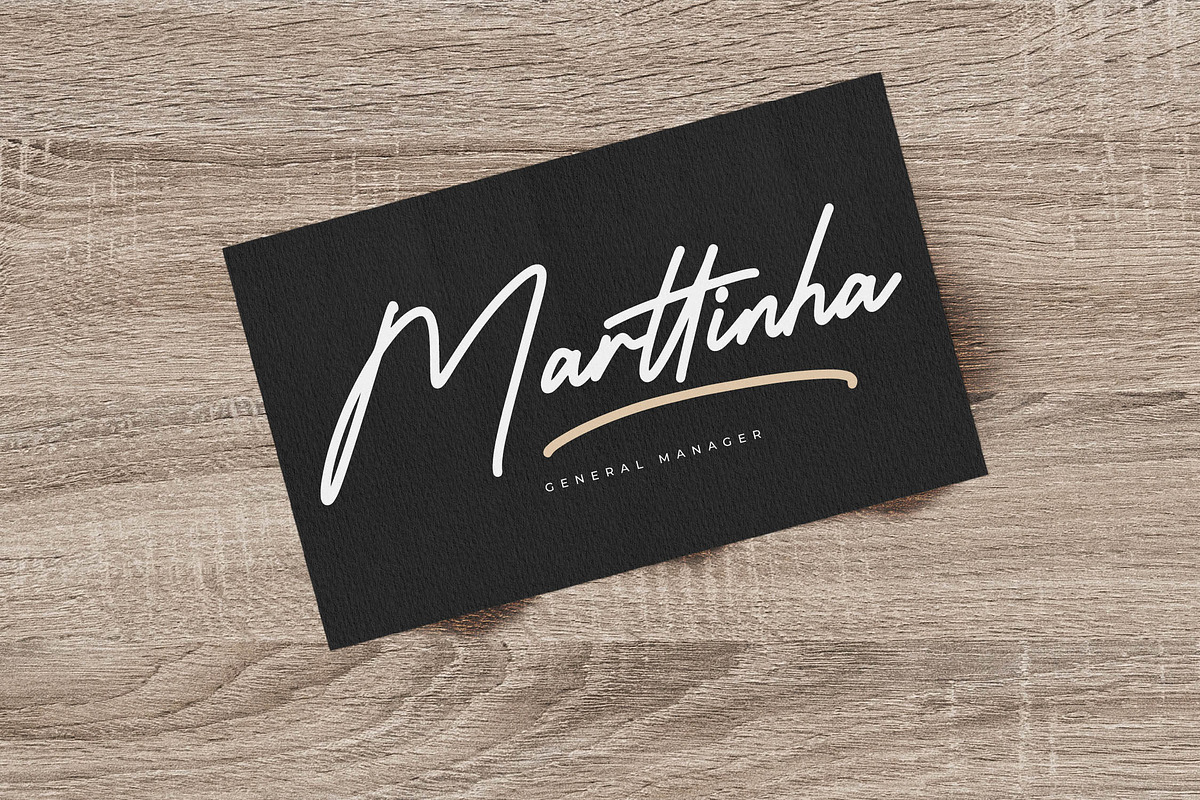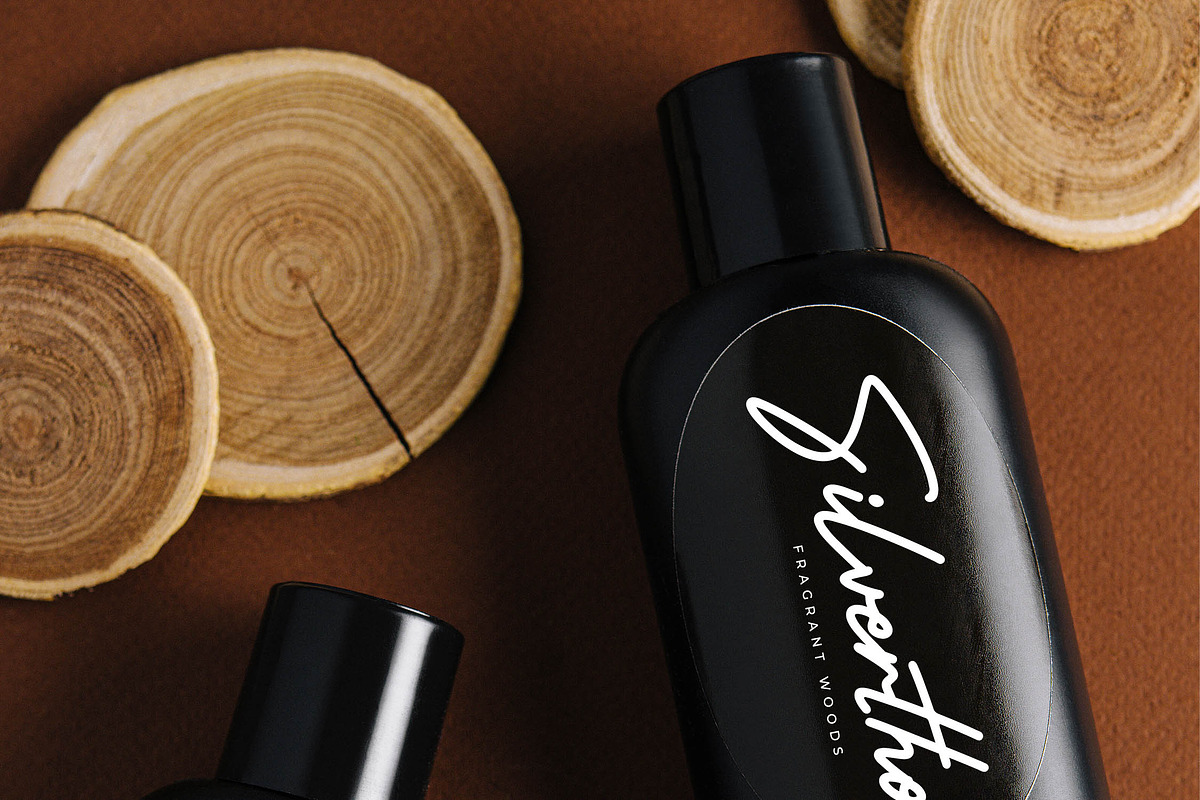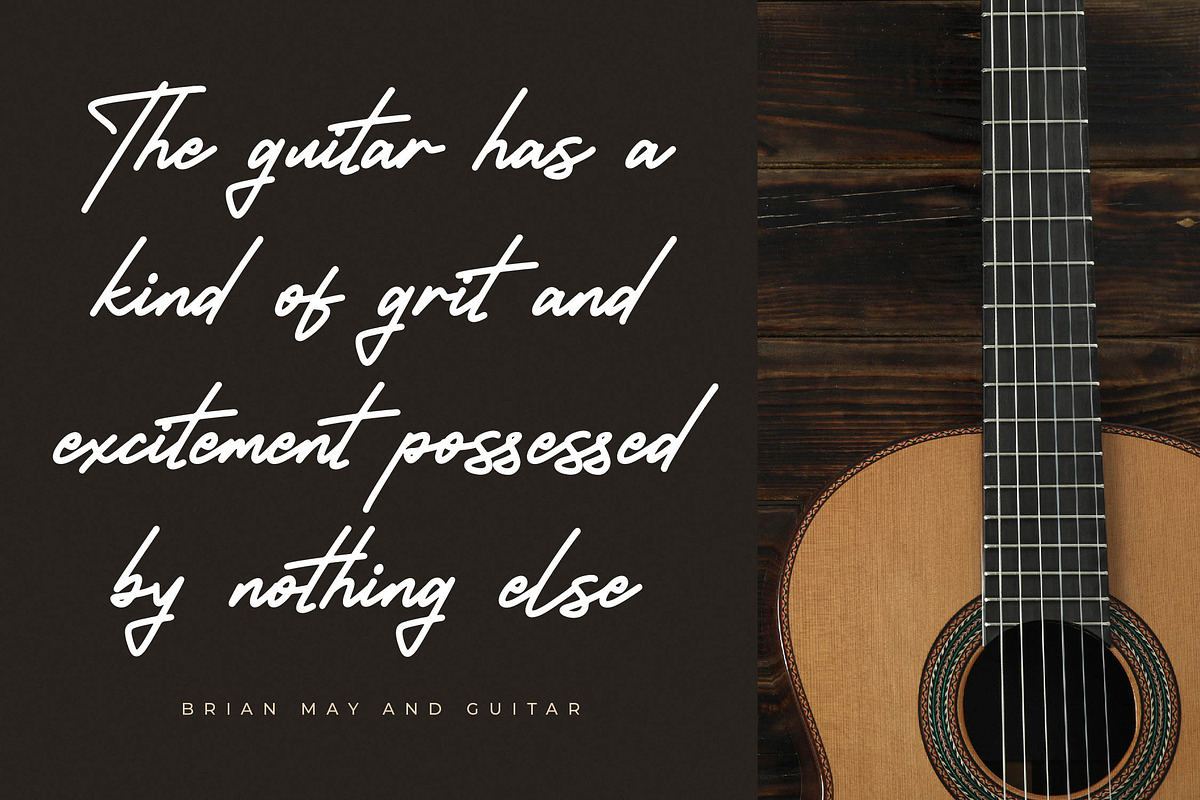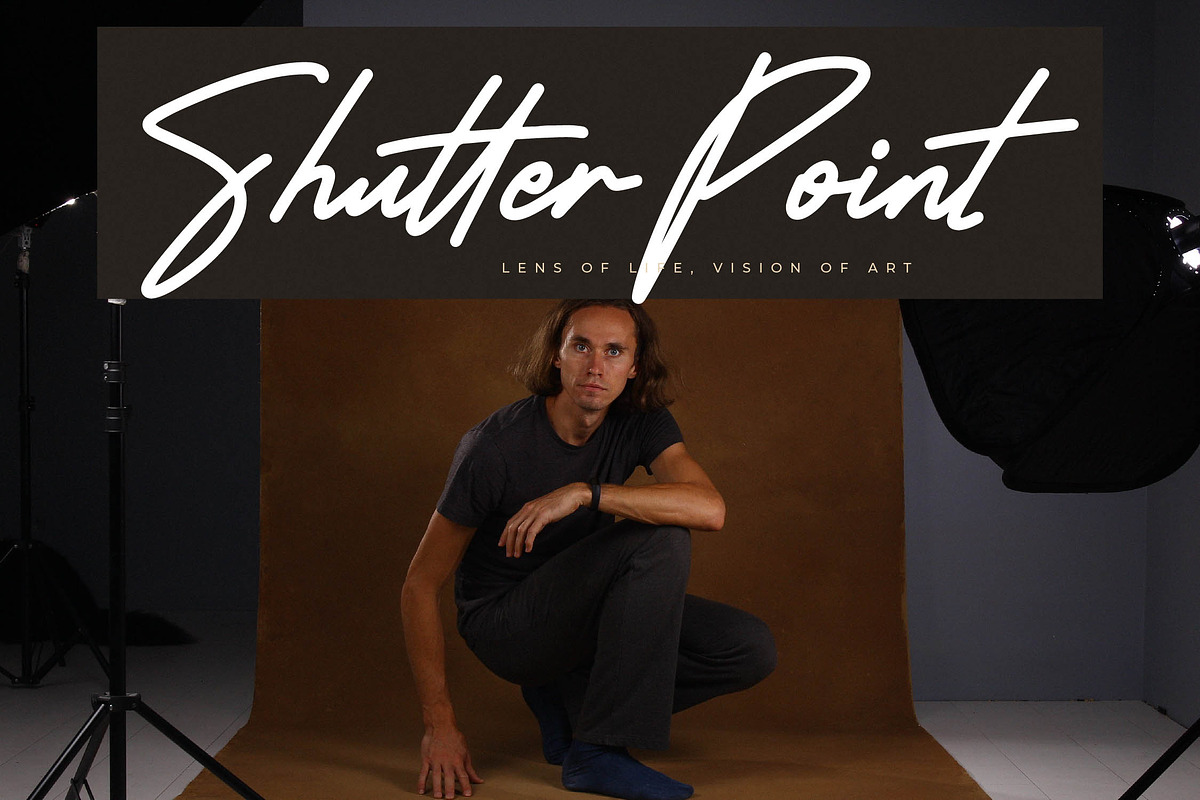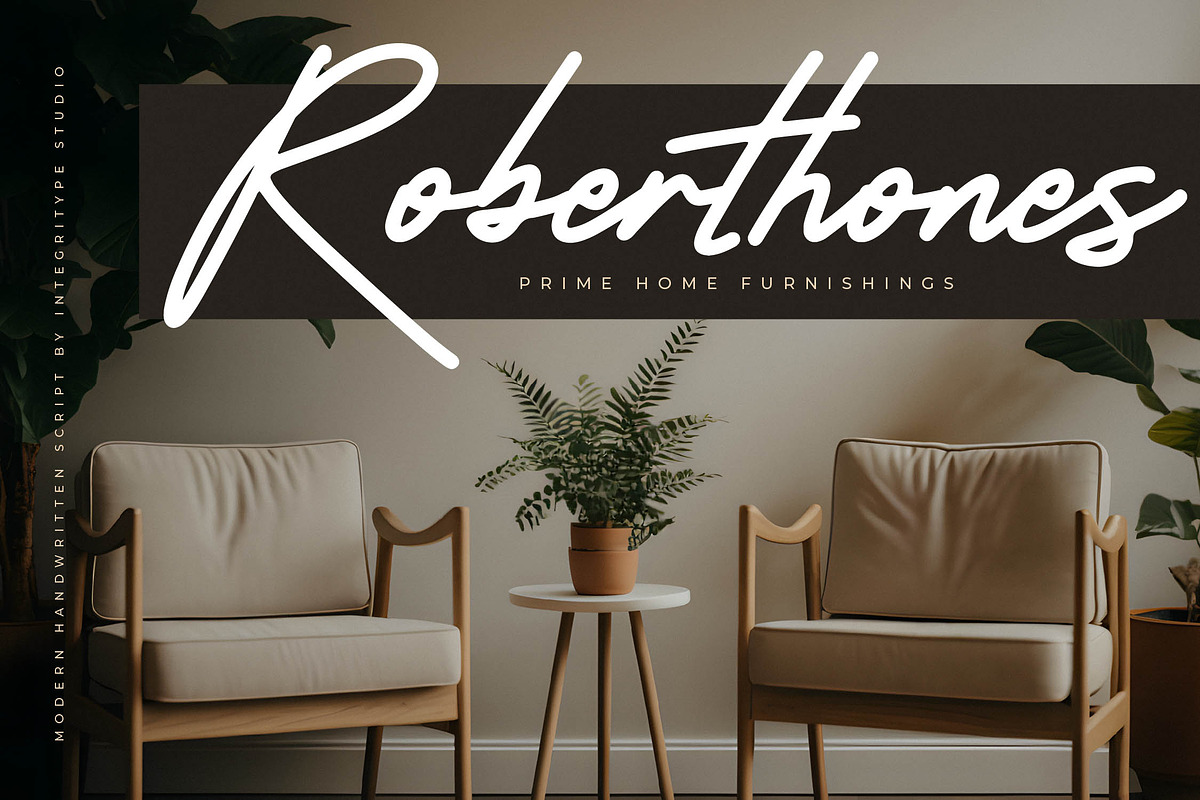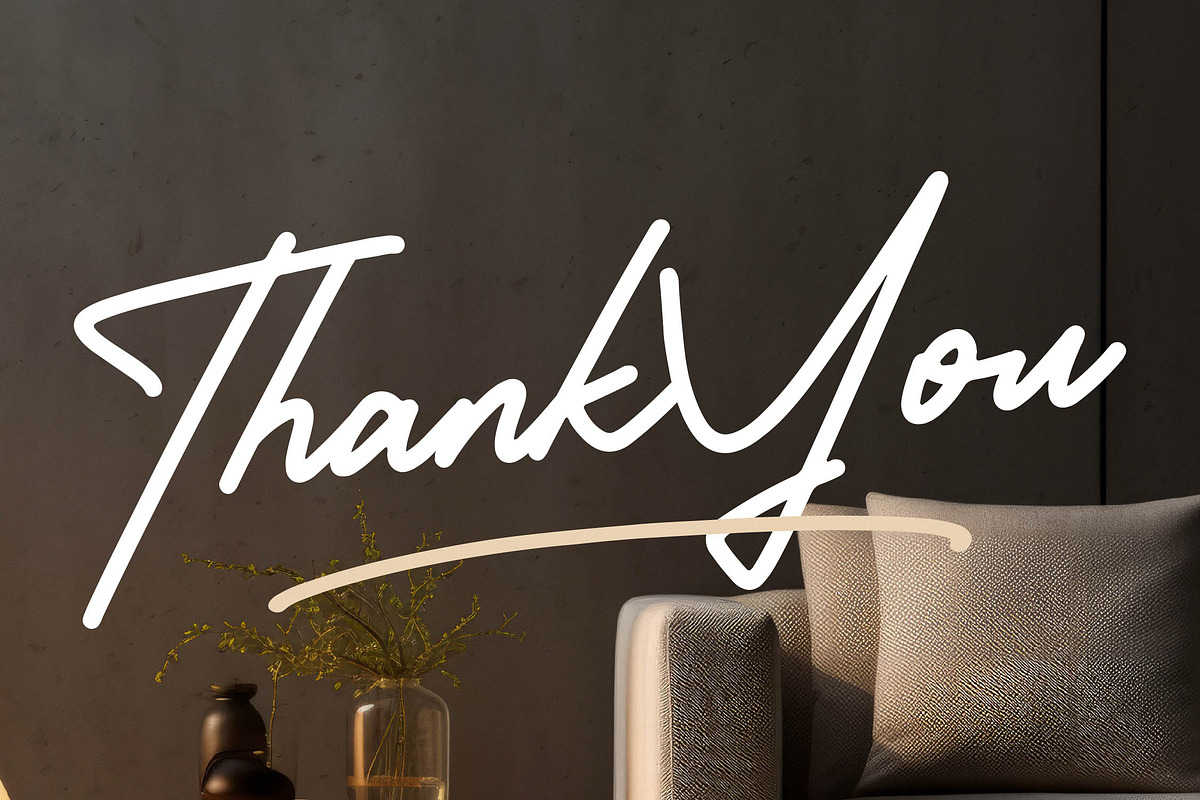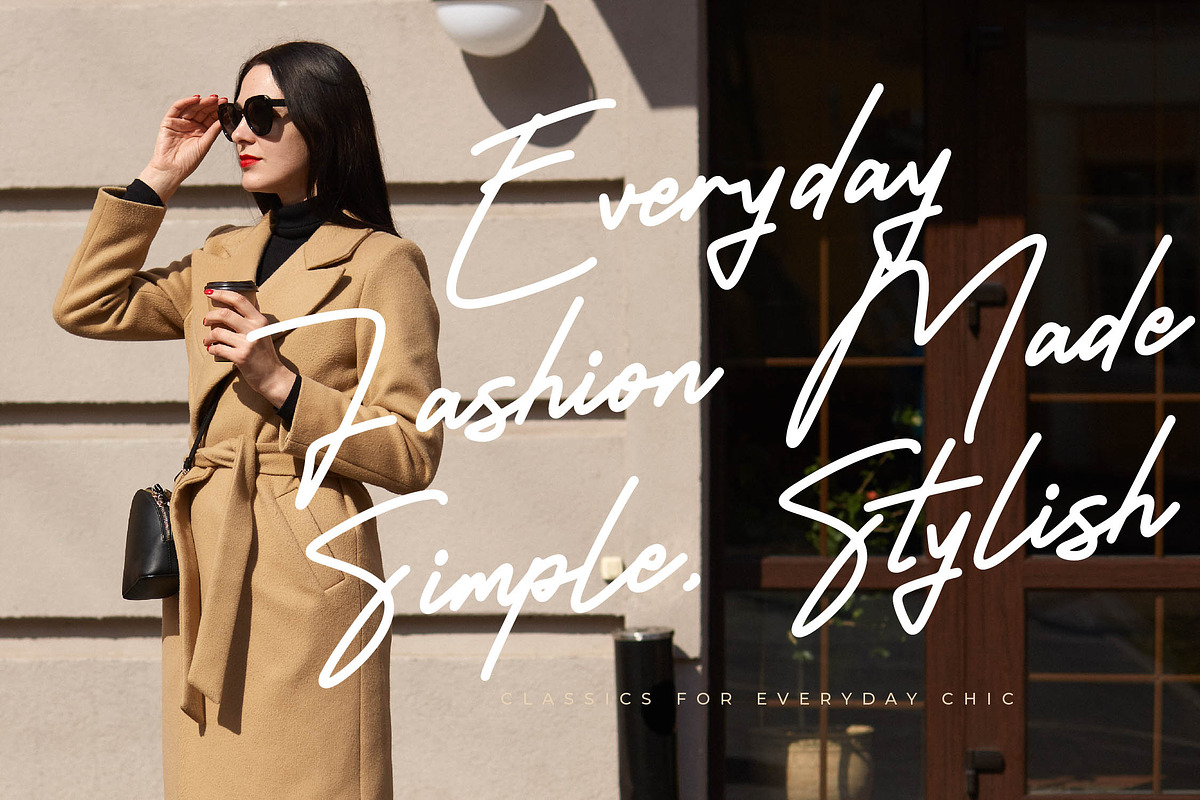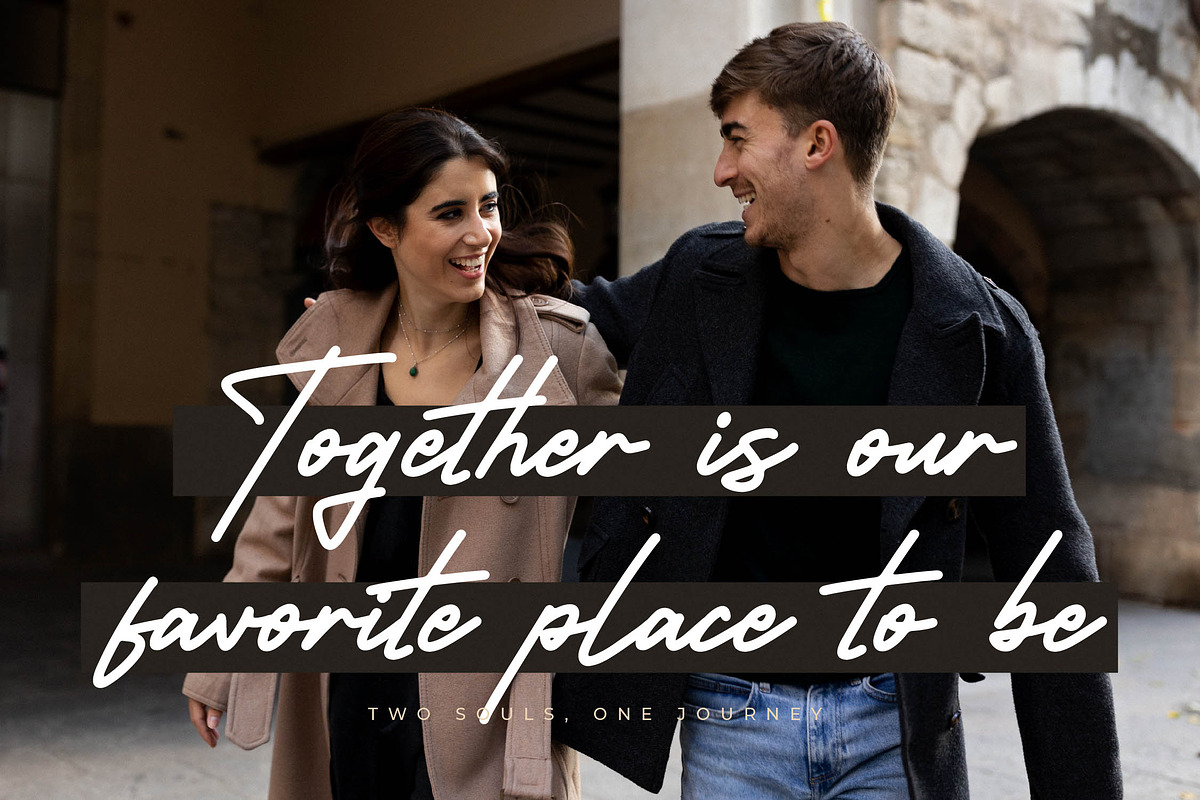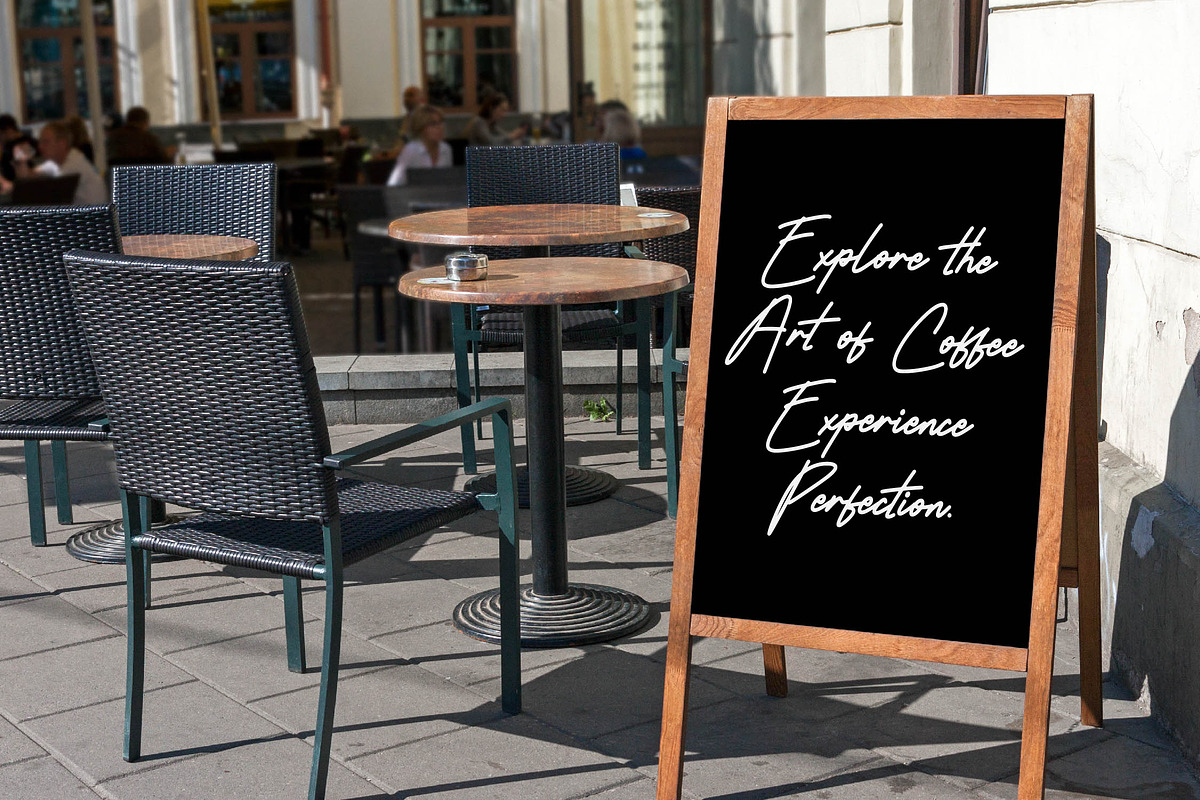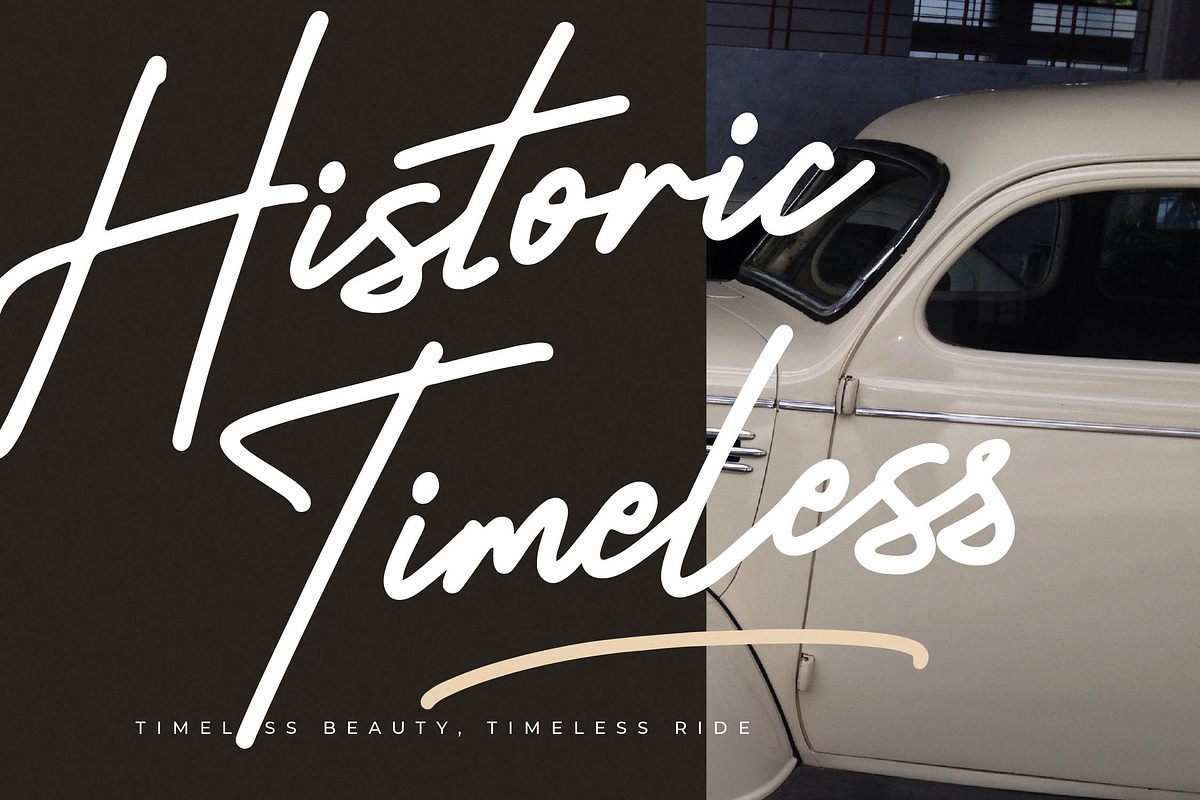
Christopher Blackstar
Christopher Blackstar - Modern Handwritten Font, from Integritype Studio, perfect for any project like: logos, branding projects, homewares designs, product packaging, mugs, quotes, posters, shopping bags, t-shirts, covers books, business cards, invitation cards, greeting cards, labels, photography, watermarks, special events and all your other luxury projects that require a premium taste.
Ligatures, Alternate & Swashes